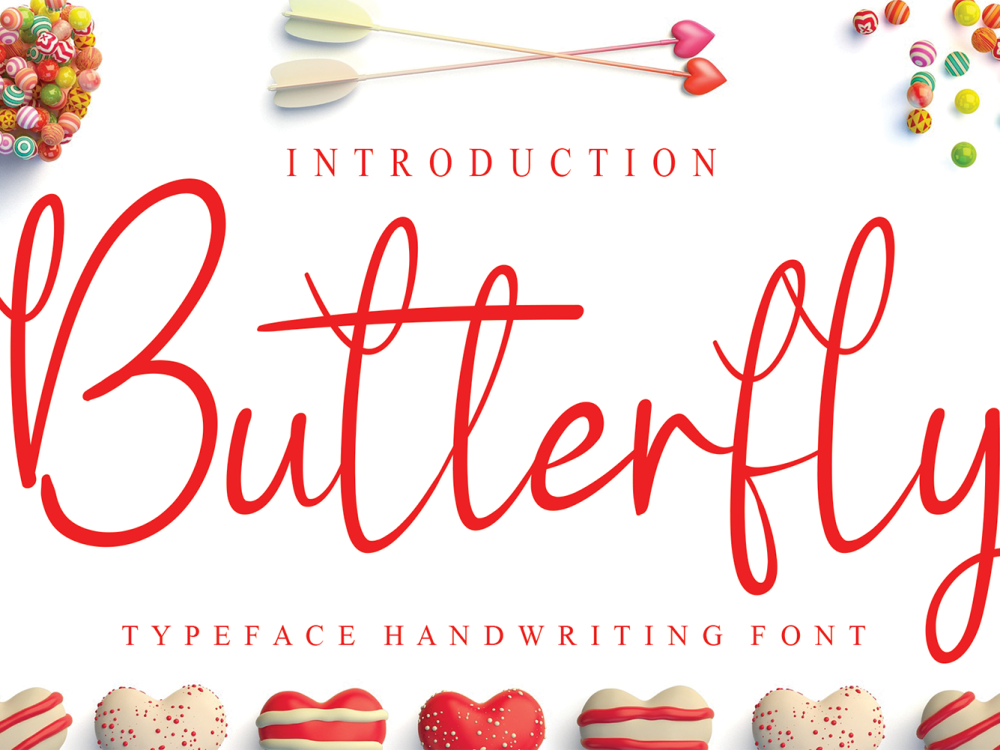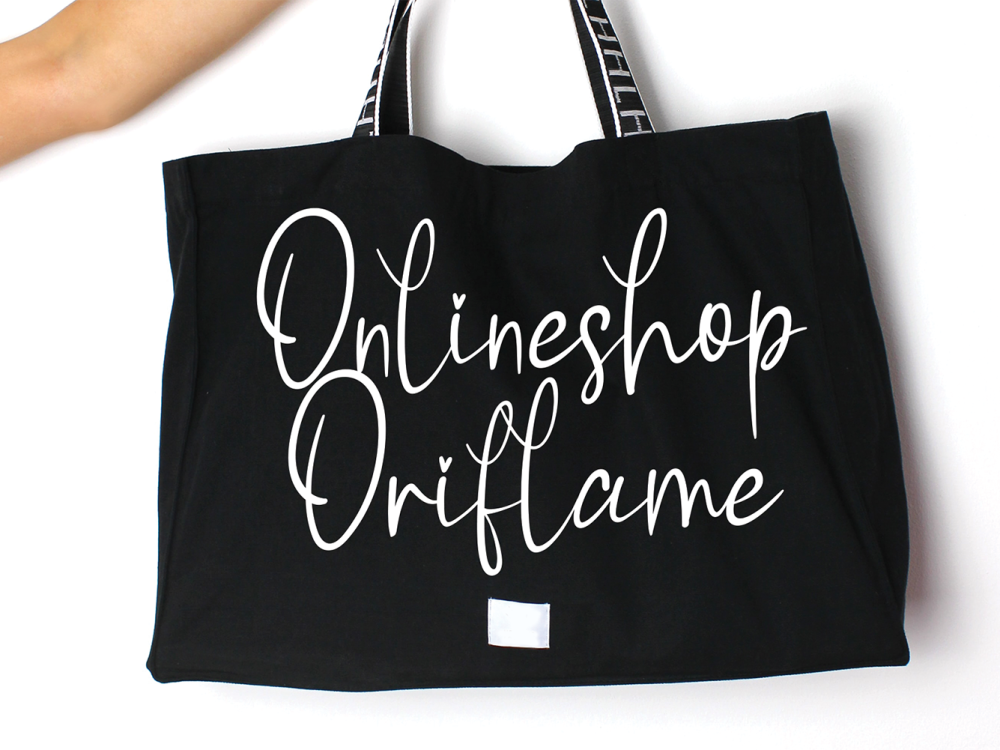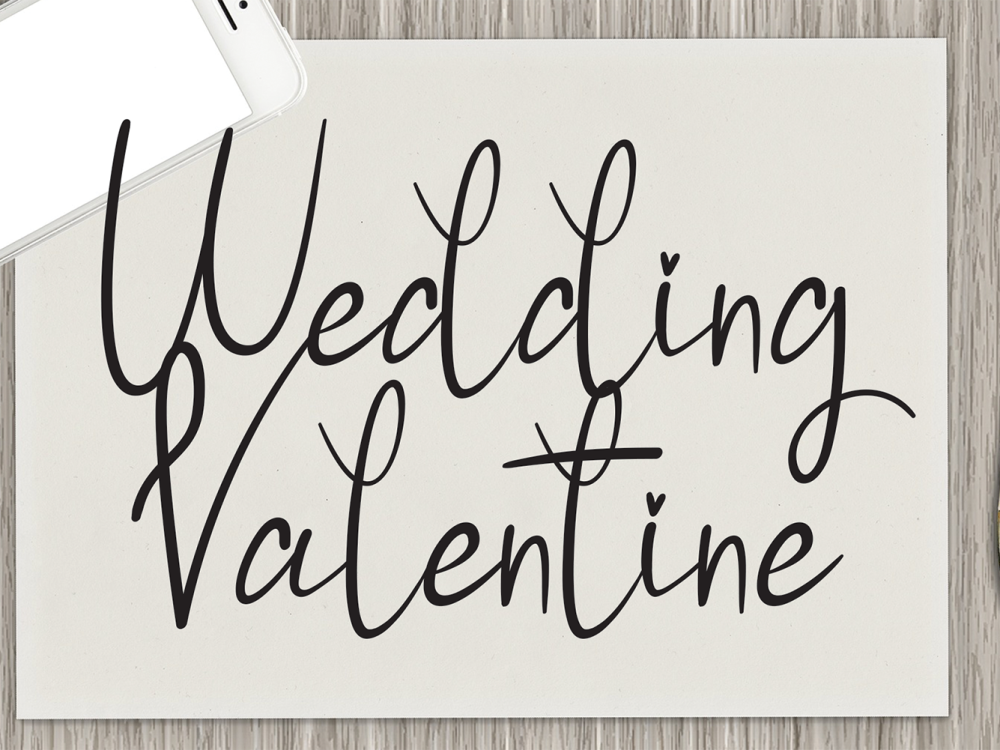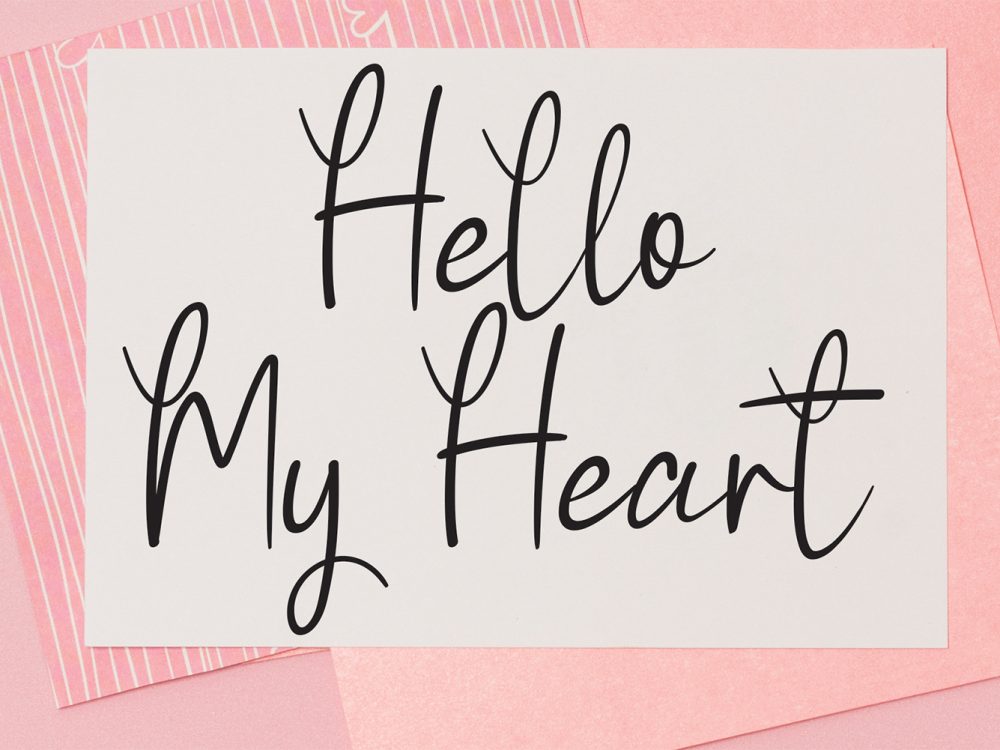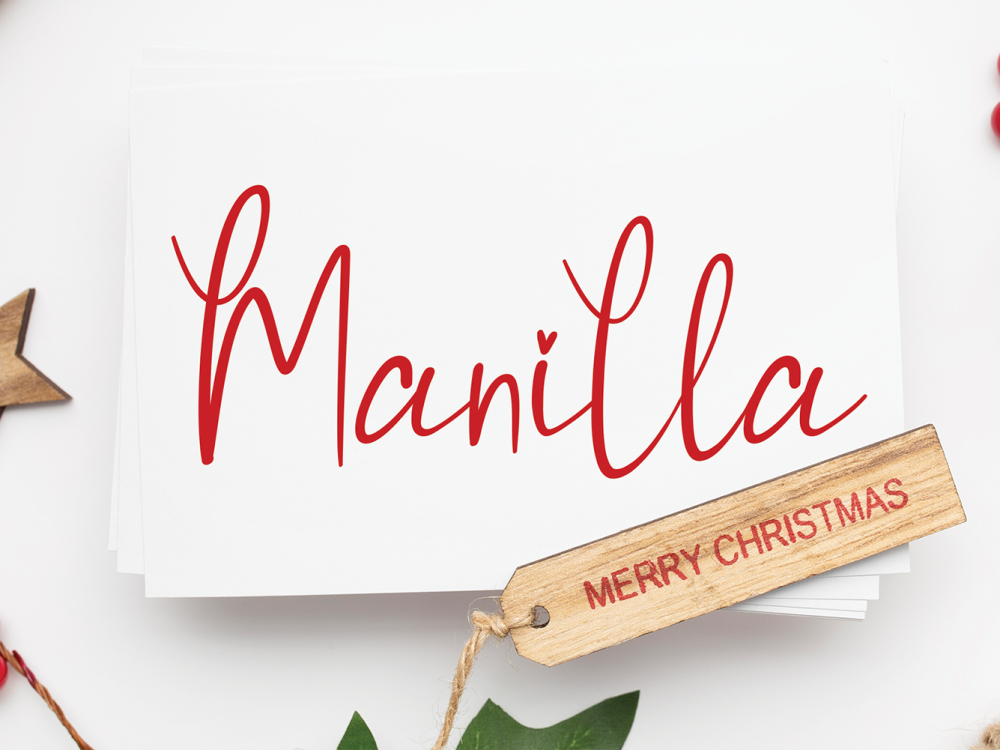
Butterfly Free Font
Introducing Butterfly Free Font, a refined script font boasting an air of elegance. With a delicate and sophisticated appearance, it strikes the perfect balance between subtlety and richness. Meticulously crafted, this font variation enhances the aesthetic appeal of your projects, adding a touch of grace and charm to elevate their visual allure. If you like it don’t forget to check out the full version.